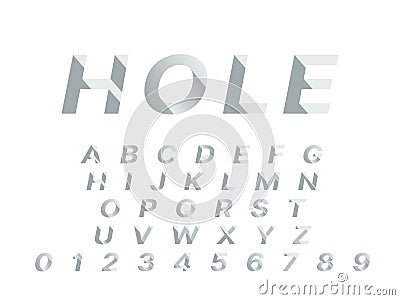
Hole font. 3d deep shadowed typography design, push deepening alphabet shapes, incline diagonally graphics numbers and #217814025
Hole font. 3d deep shadowed typography design, push deepening alphabet shapes, abc signs, incline diagonally graphics numbers and letters. Cubic straight block modern typeset. Vector isolated set